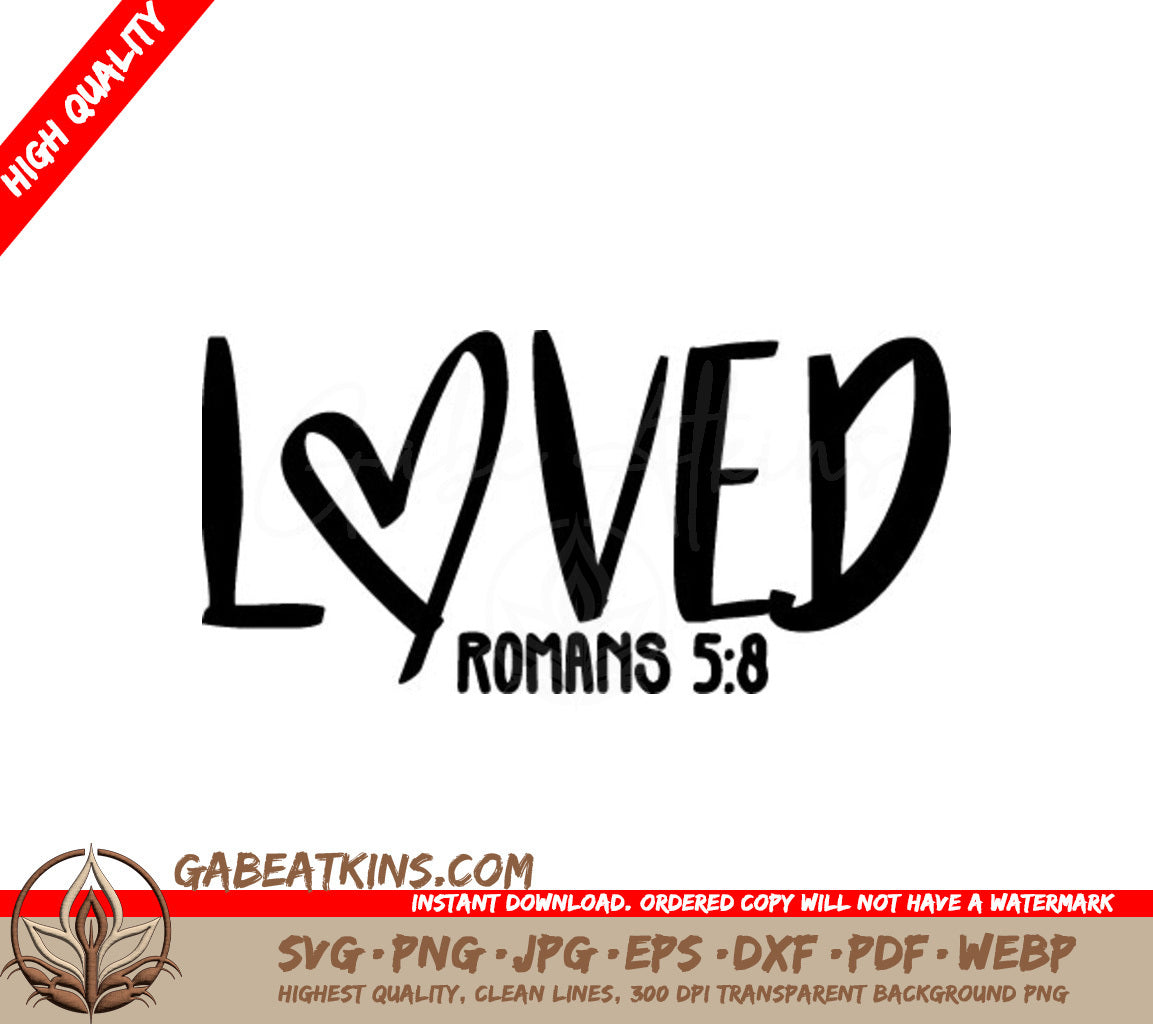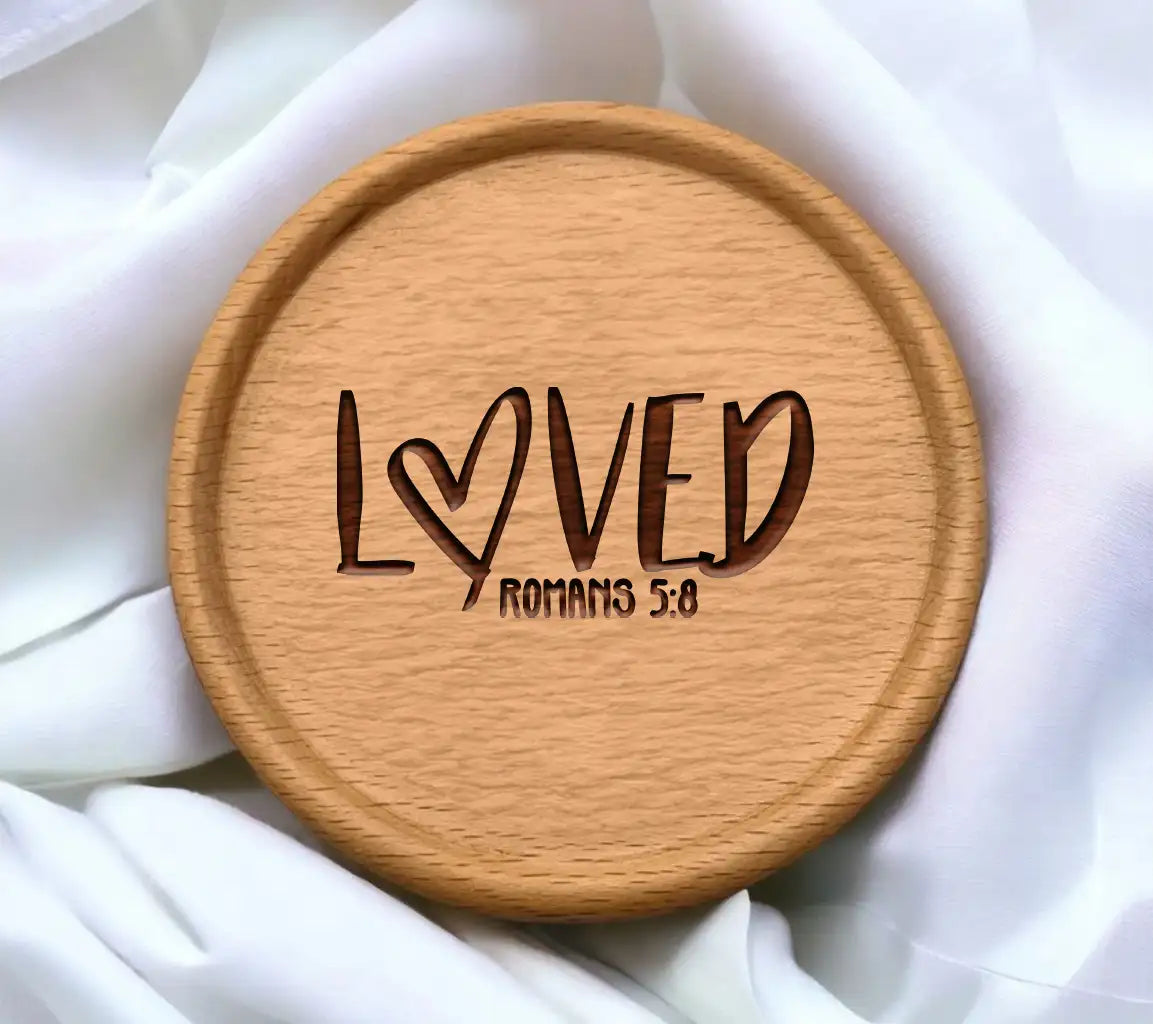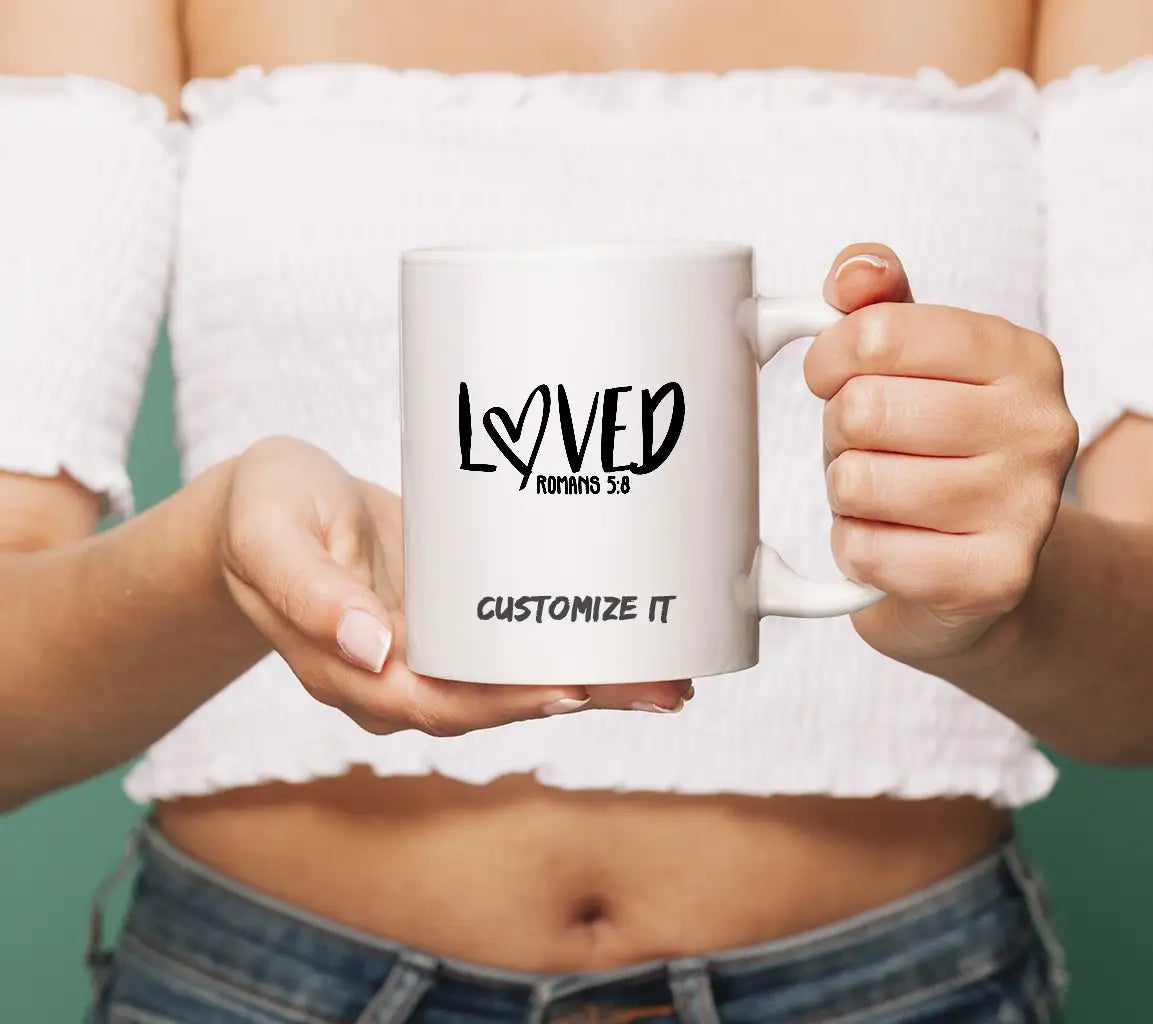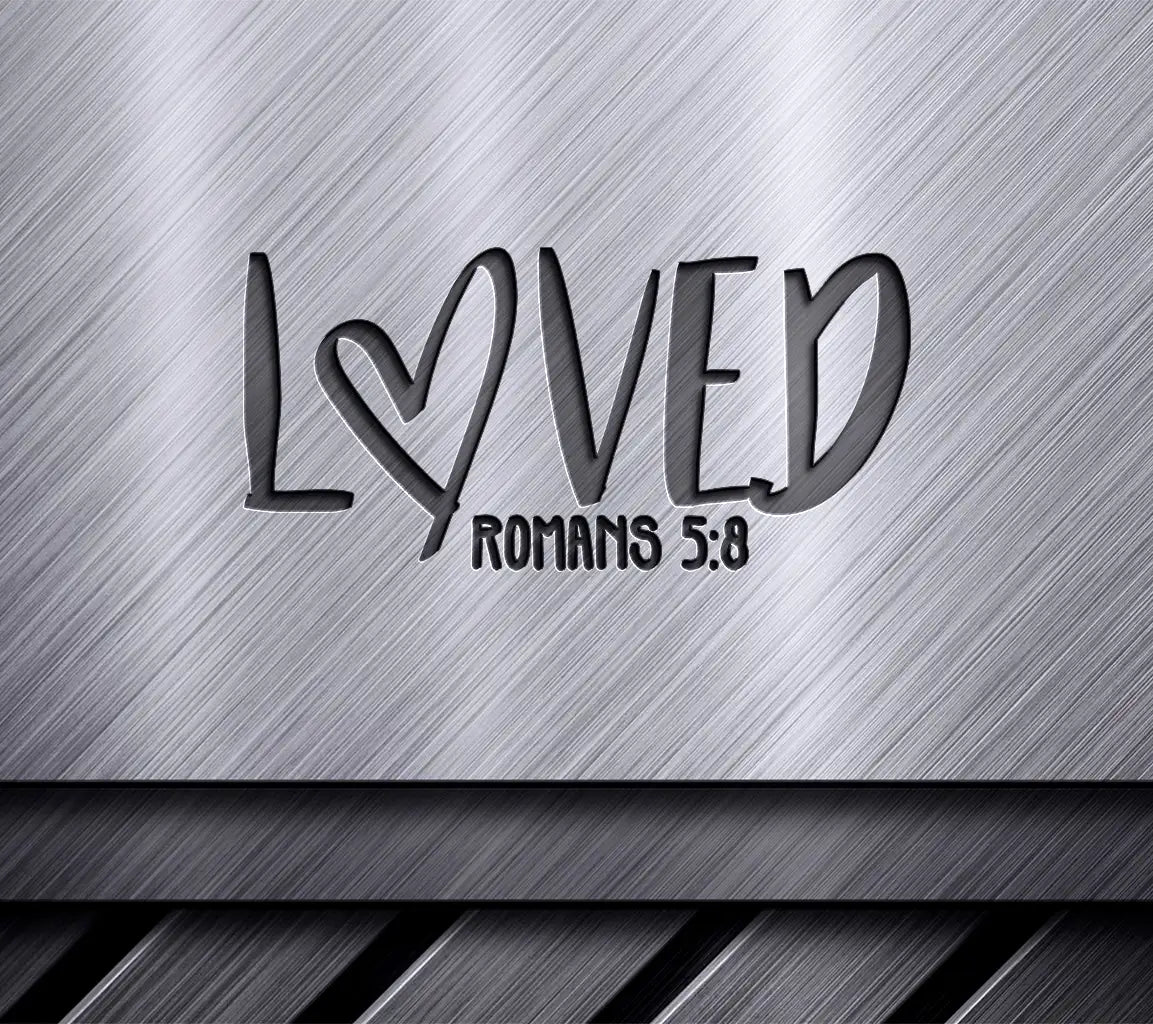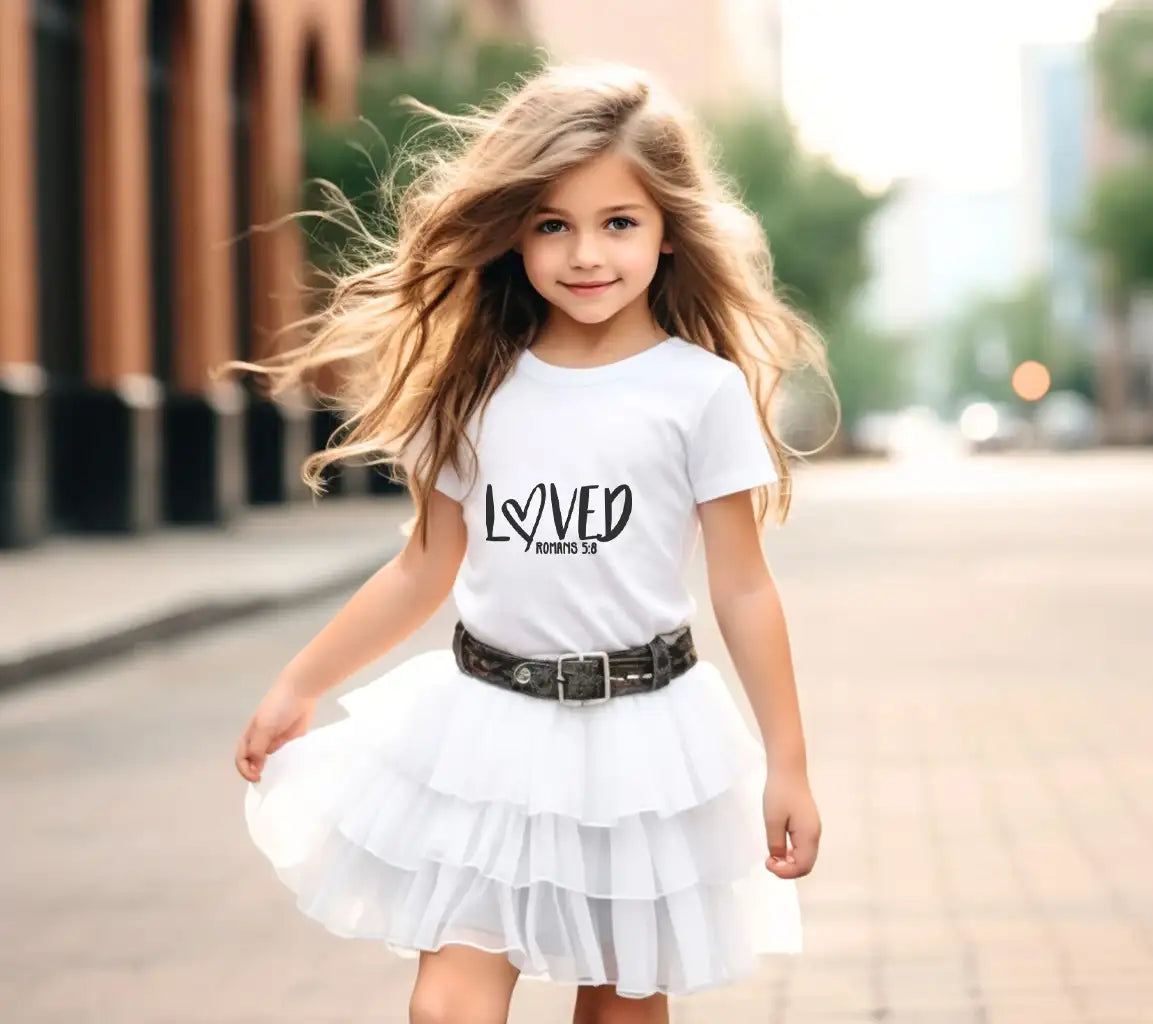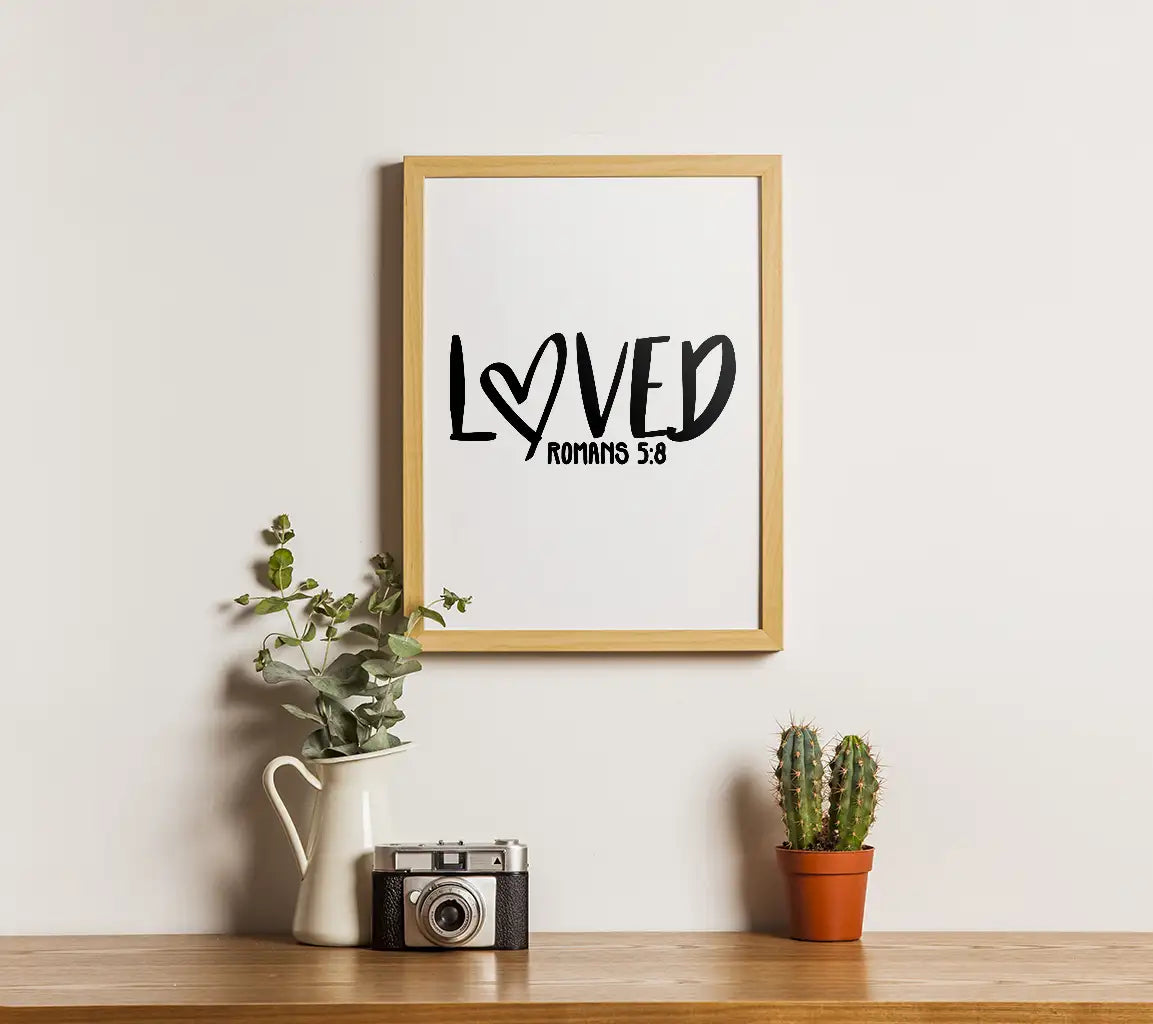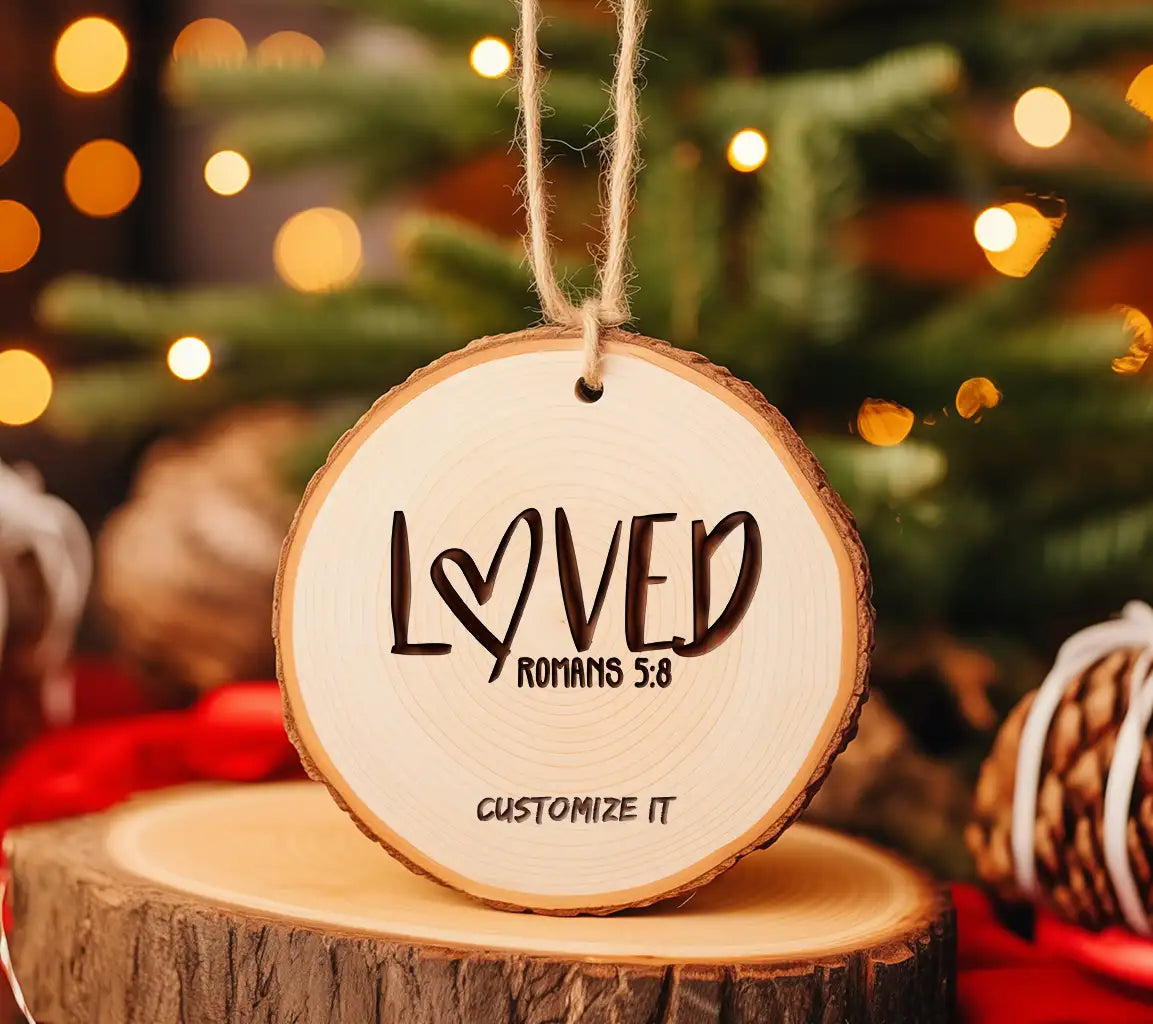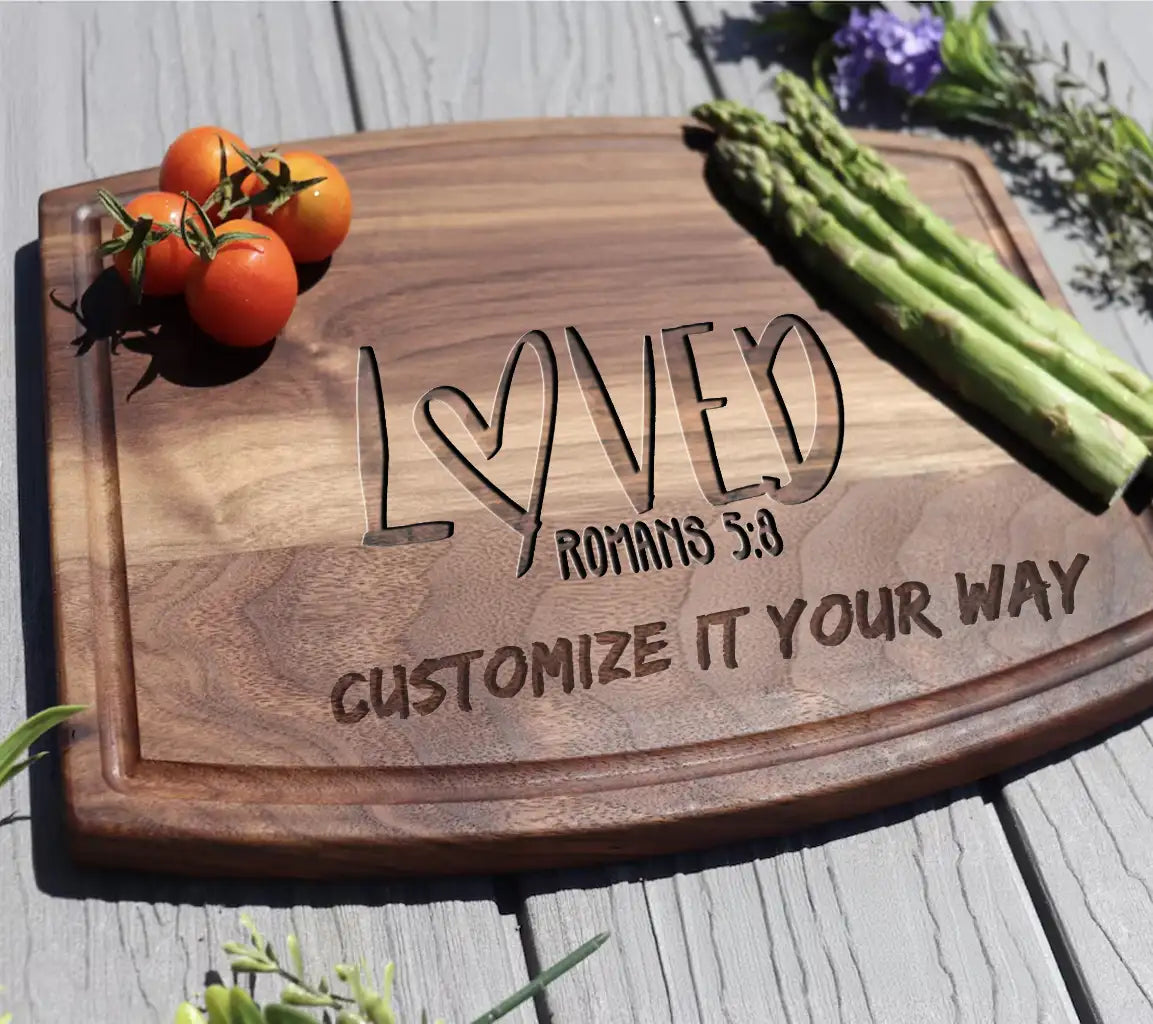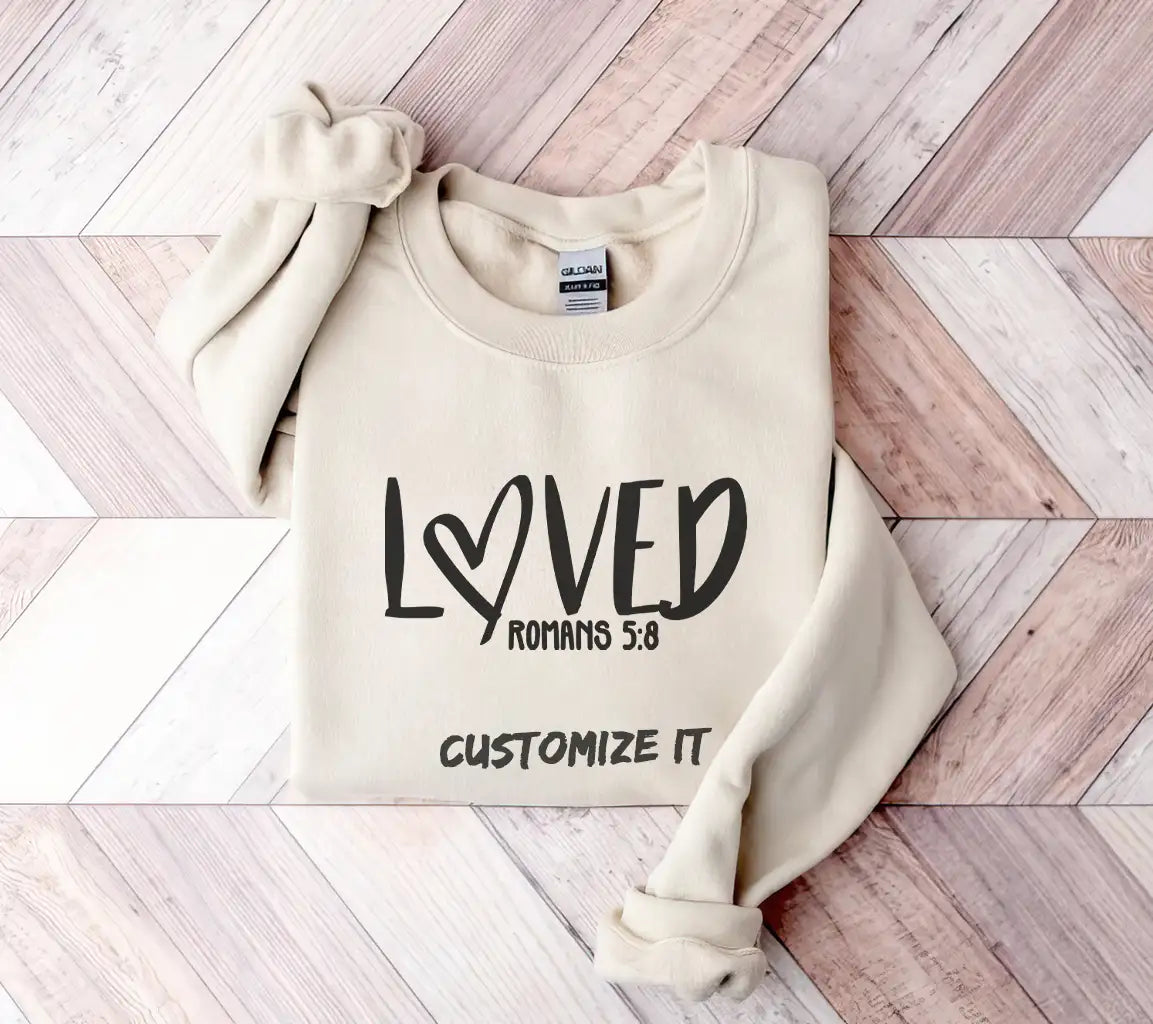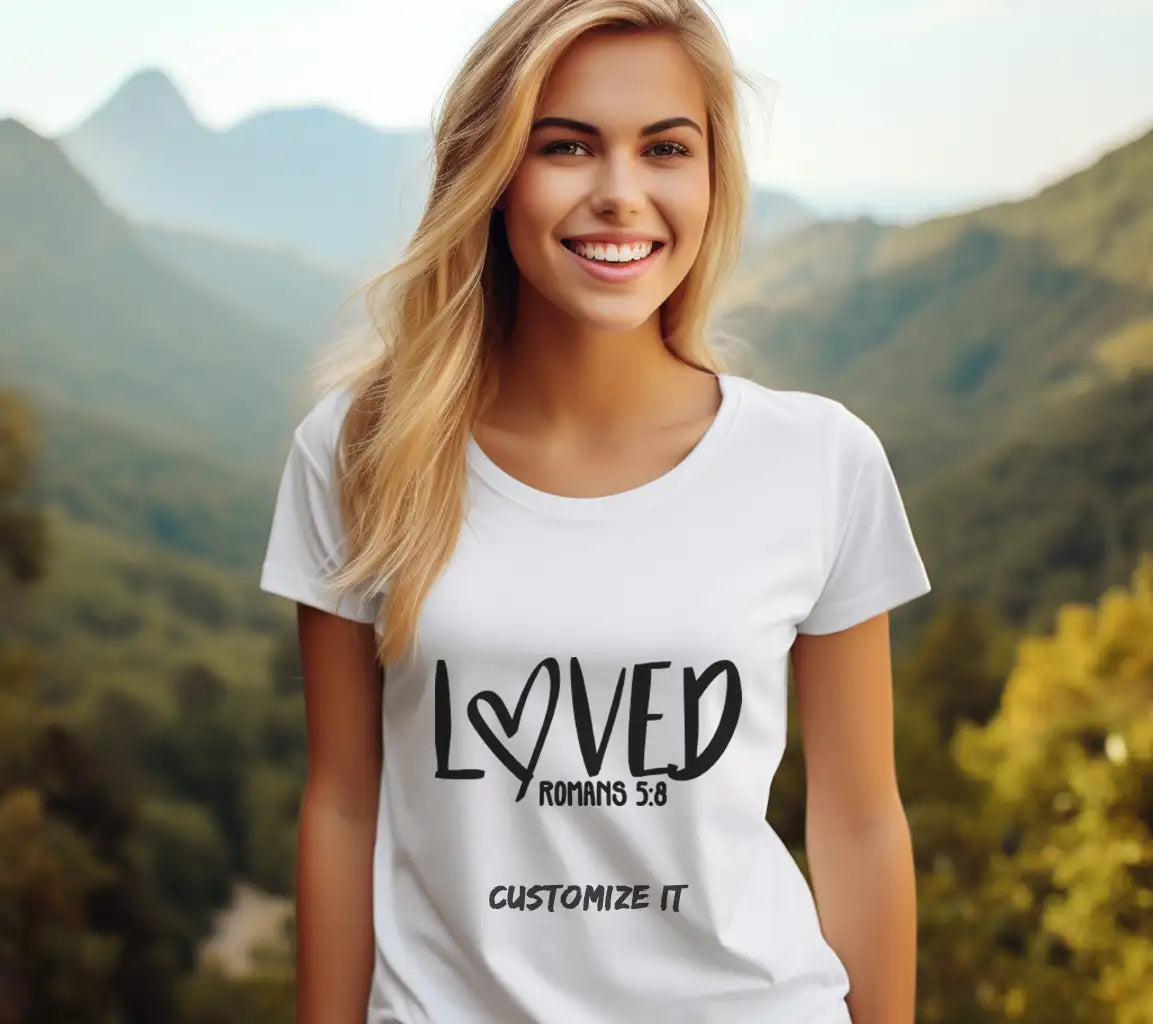
This adorable "Loved Heart" SVG design, crafted with a charming Baby Roman font, is the perfect addition to your next crafting project! Whether you're creating personalized gifts, designing invitations, or adding a sweet touch to your website, this SVG will bring a smile to everyone's face.